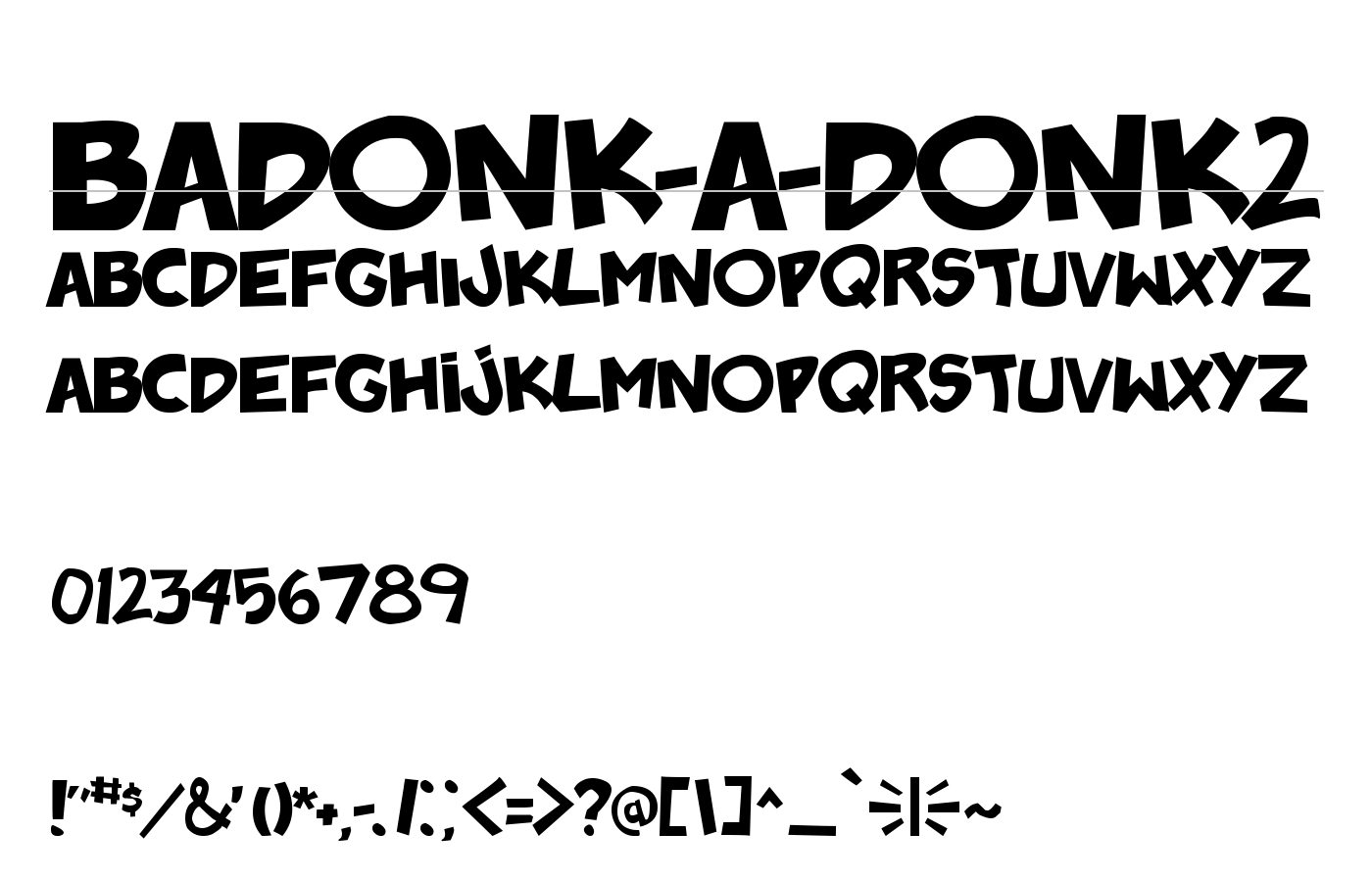
Badonk-a-donk2 is a bold, playful sans serif font with a quirky, hand-drawn feel. Its irregular, chunky letterforms and slightly tilted characters create a fun and energetic vibe, making it perfect for informal, youthful designs such as posters, comics, or casual branding. This font works best when you want to add personality and a lively touch to your headlines or playful graphic projects.
badonk-a-donk2 Font
About badonk-a-donk2 Font